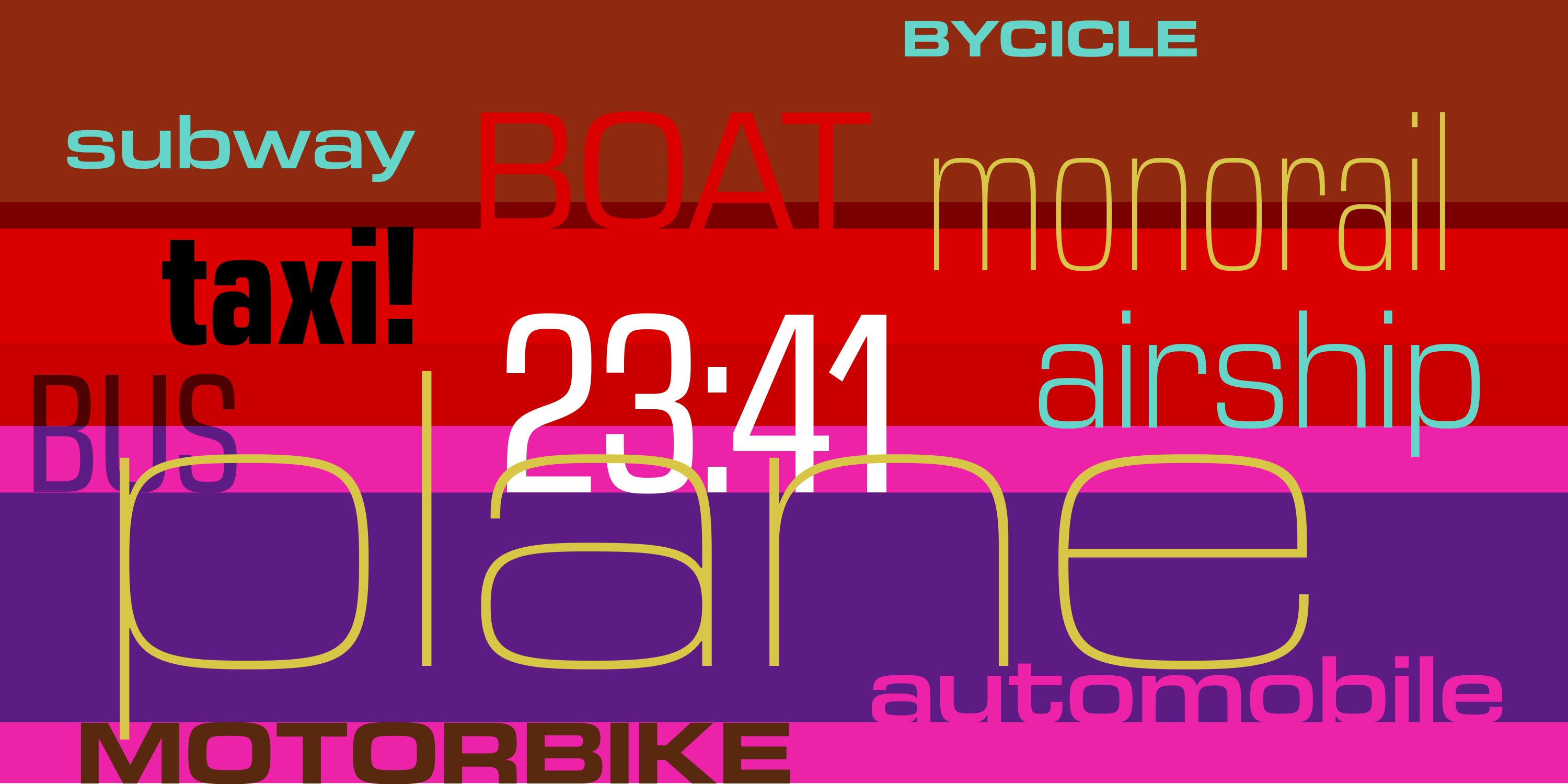
Eurostile Next Font is perfect for aerospace industry branding, high-tech product interfaces, science fiction movie titles, automotive design presentations, industrial manufacturing signage, space exploration materials, and futuristic corporate identities that require technological sophistication and forward-thinking typography.
This font is exciting because it represents the evolution of space-age design, featuring refined geometric letterforms that convey technological advancement, precision engineering, and the unlimited possibilities of future innovation while maintaining exceptional clarity for technical applications.
The Eurostile Next Font family includes light, regular, medium, and bold weights with extended variants, offering uppercase and lowercase letters, technical numerals, scientific symbols, engineering punctuation marks, and futuristic elements designed for high-tech applications.
Technology designers consistently choose Eurostile Next Font Free Download for projects requiring authentic space-age character and engineering precision. This advanced typeface transforms technological communications into compelling statements of innovation excellence that immediately resonate with audiences seeking genuine high-tech sophistication and scientific advancement. The font's technological character makes it exceptionally effective for aerospace companies, automotive manufacturers, and research institutions where engineering precision and futuristic vision must be communicated through every visual interface. Its space-age heritage bridges mid-century technological optimism with contemporary digital innovation, making it invaluable for brands celebrating scientific progress and technological leadership. The precisely engineered letterforms maintain their futuristic appeal across control panels and digital displays, ensuring consistent brand recognition and technological authority. Whether you're developing aerospace corporation identities, creating automotive design presentations, or designing scientific research interfaces, this typeface provides the technological voice and visual precision that distinguishes genuine engineering excellence from commercial tech marketing, establishing immediate credibility among technical professionals who appreciate authentic space-age design heritage and expect the highest standards of technological sophistication in their engineering communications and scientific visualization systems.